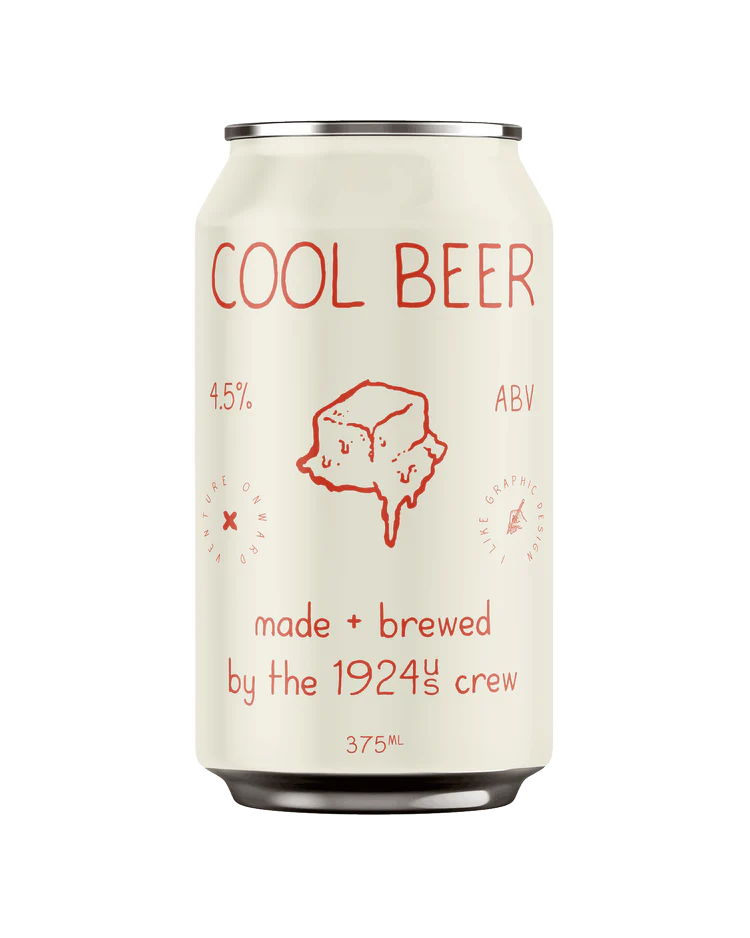
Tragic Avec Font by 1924us
Use it for this, that, or whatever else you can think of, this first-of-its-kind-to-1924us-Free-font is a commercially + personally usable font you can use however you see fit! We made it as a competitor to Comic Sans, and it offers two cases, special characters and the like. It’s a great piece for anything you can imagine!